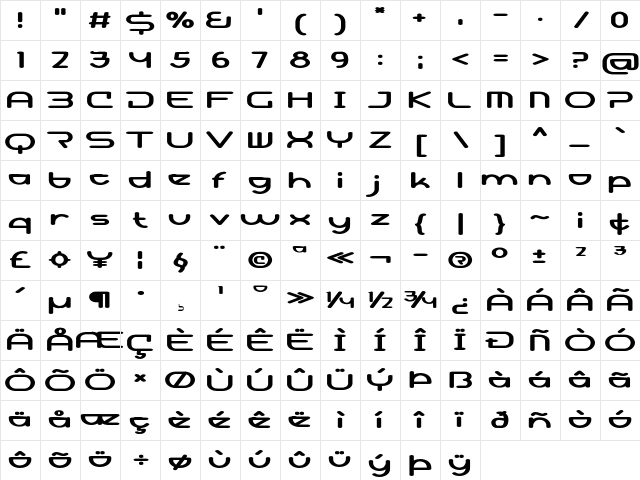
Complete Adura Expanded Bold glyph index. Displaying only characters natively supported by Adura Expanded Bold font.
Adura is a composed and adaptable typeface that performs quietly and consistently across a wide range of design contexts. Its bold stroke weight gives it real presence on the page.